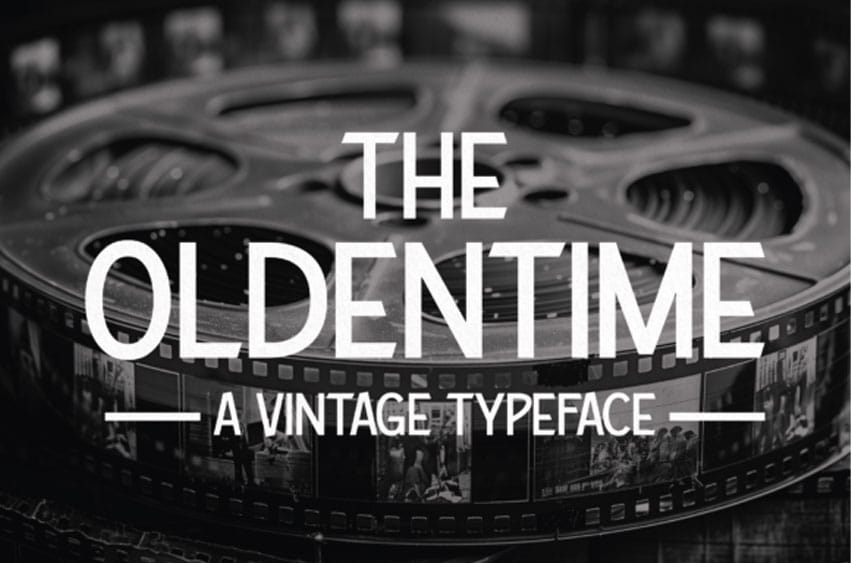
The Oldentime Font Step into the glitz and glamour of the roaring twenties with The Oldentime, a captivating vintage typeface inspired by the enchanting world of 1920s Hollywood cinema.
Perfect for movie posters, invitations, branding, and more, this typeface brings a touch of vintage allure to any project, making it an ideal choice for designers seeking to add a dash of classic elegance to their work.